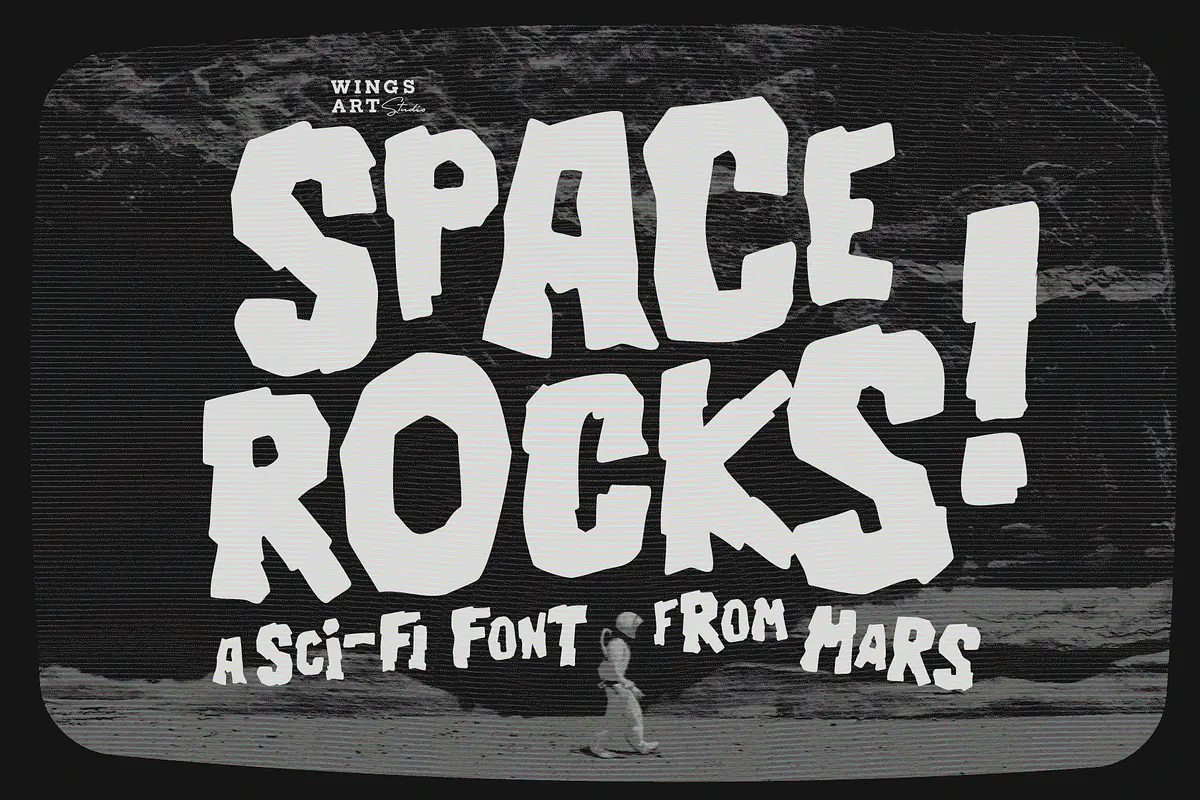
Space Rocks! A Retro Sci-Fi Font Free Download
Space Rocks! – A Retro Sci-Fi Font Free Download is a bold and adventurous typeface inspired by classic space-age design and vintage sci-fi movie posters. Please note, you are required to purchase this font for commercial use. It is available for free download for testing and personal projects only.
With its sharp edges, futuristic curves, and interstellar vibes, Space Rocks! is perfect for gaming titles, retro-themed branding, event posters, comic covers, and anything that calls for cosmic flair. It captures the energy and optimism of mid-century science fiction while remaining clean and legible.